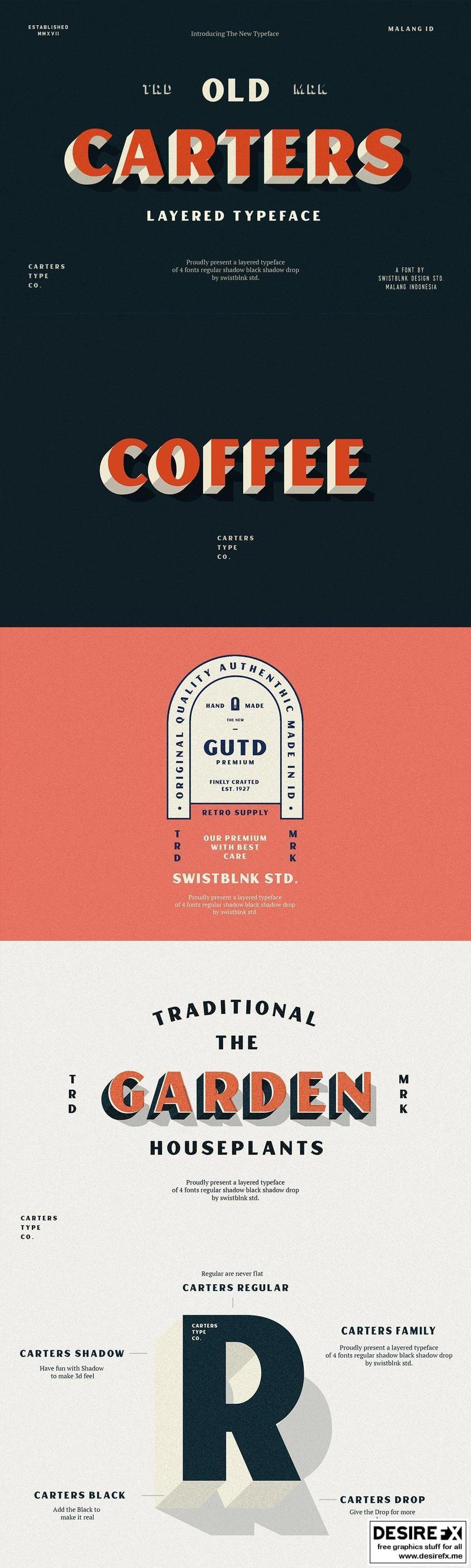
Carter Layered LD3VFG
Carters is Layered Typeface inspired by old retro signage. with the layered system you can easily make more retro feel on your next project.
This collection come with layered type system, there are so many possibilities combination.
- Suitable for Headlines, Logotypes, Signs, Posters, Letterhead, T-Shirt and many more.